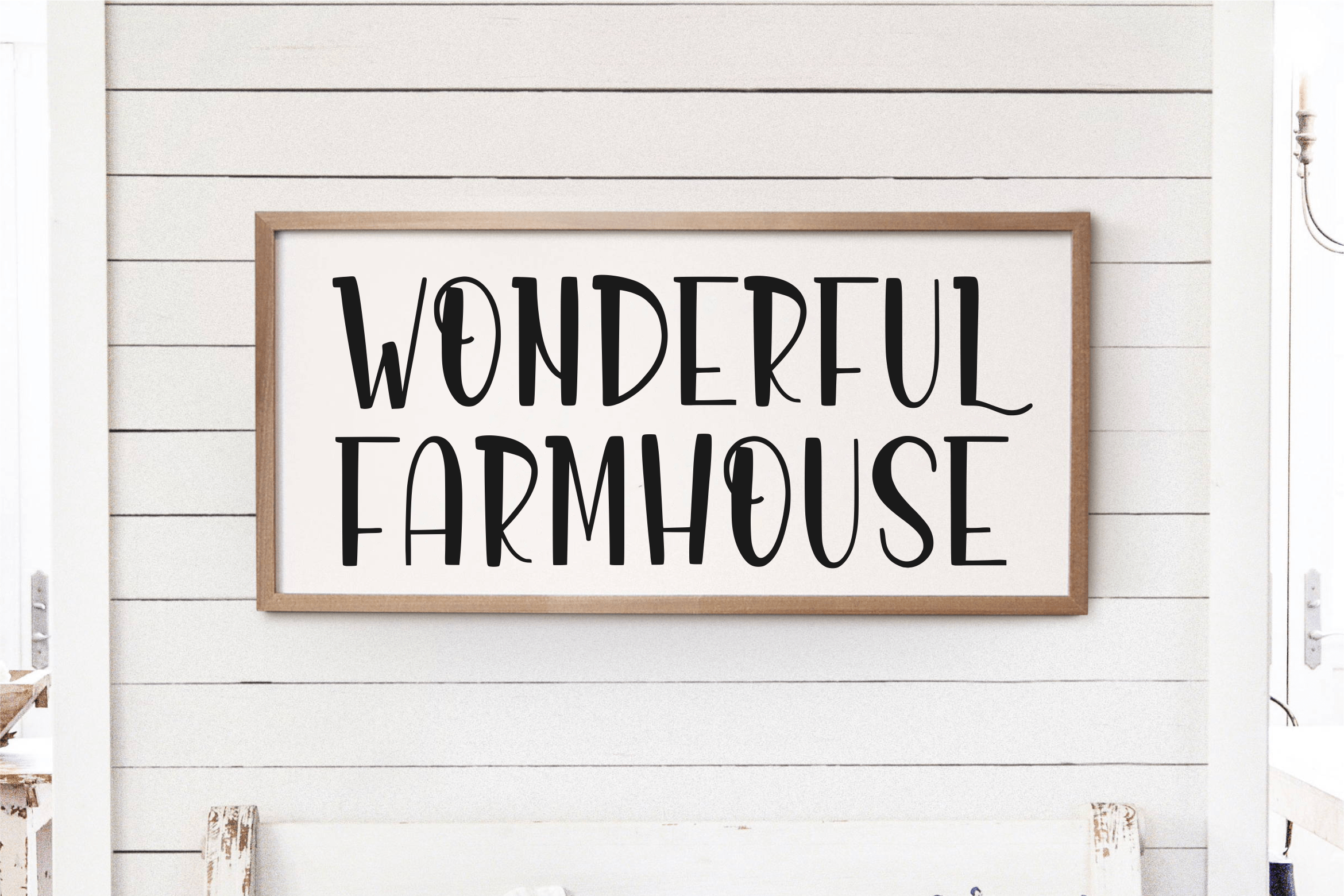
Allafyou Dreaming Font
Allafyou Dreaming Display Font
This is a Playful Display Font. Allafyou Dreaming is perfect for product packaging, branding project, magazines, social media, weddings, or just used to express words above the background.